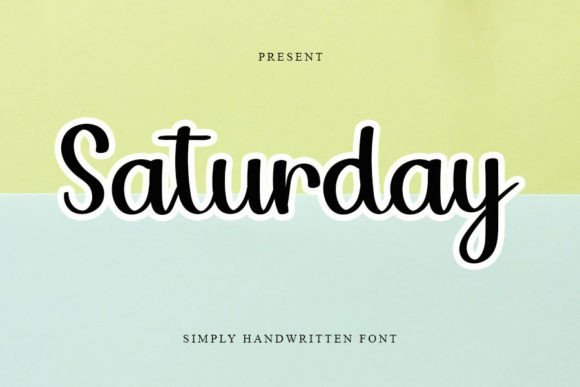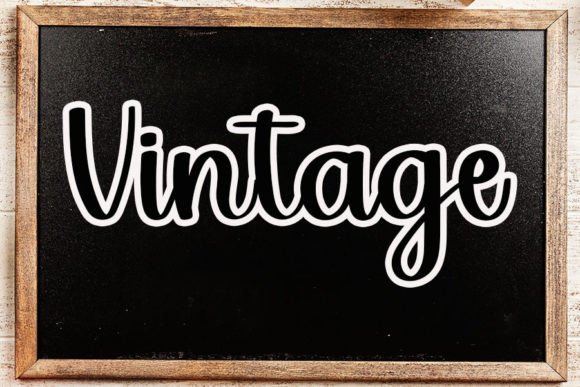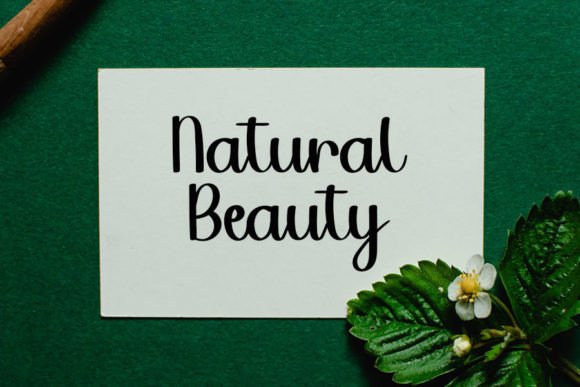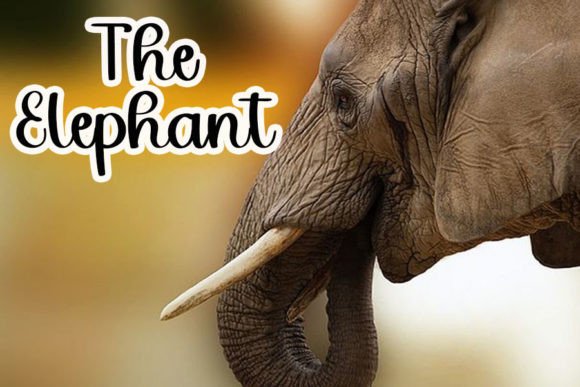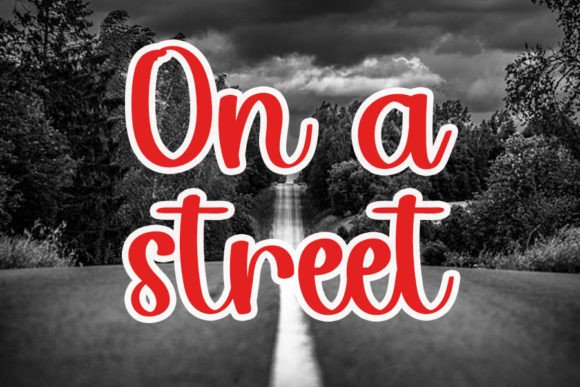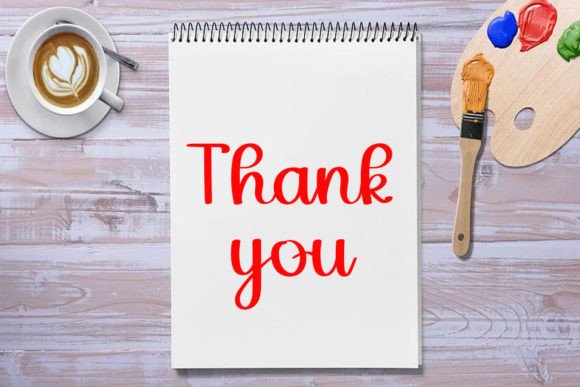
Saturday Font
Add a Magical Touch with Saturday Font
The Saturday font is a charming handwritten typeface that combines elegance with a hint of playfulness. Designed with care, its clean lines and subtle quirks make it ideal for both professional branding and personal projects. Whether you’re crafting a logo or designing social media graphics, this font offers a unique, handcrafted feel that stands out.
Why Choose the Saturday Font?
There are countless fonts available, but few offer the warmth and style of Saturday. Here’s why you’ll love it:
• Elegant, modern handwritten appearance
• Suitable for both print and digital use
• Perfect balance of style and legibility
• Smooth curves and consistent letterforms
Thanks to its versatility, you can easily adapt this typeface to many creative uses. Its simplicity helps your message come across clearly while still adding personality.
Ideal for Many Projects
Saturday font fits naturally into a wide variety of design situations. Consider using it for:
• Brand identity and logo creation
• Instagram posts and Pinterest pins
• Wedding invitations and event signage
• Product packaging and labels
• Greeting cards and quote graphics
• DIY craft designs and Etsy shops
Its soft strokes and smooth texture ensure your designs feel refined and friendly at the same time. Whether you’re a beginner or an experienced designer, you’ll find it intuitive to work with.
With its elegant yet playful aesthetic, the Saturday font is more than just letters—it’s a creative asset. This typeface will help you express warmth, sophistication, and authenticity in any visual project.